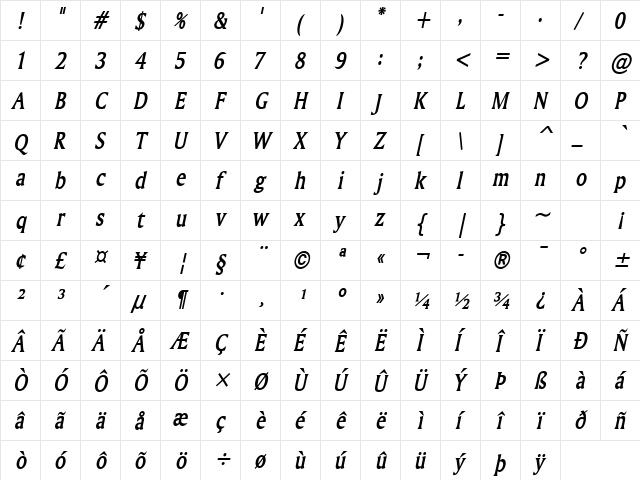
Complete Ameretto Condensed BoldItalic glyph index. Displaying only characters natively supported by Ameretto Condensed BoldItalic font.
Ameretto Condensed is a composed and adaptable typeface that performs quietly and consistently across a wide range of design contexts. The slanted form adds forward momentum and visual energy. Its bold stroke weight gives it real presence on the page. Its narrow stance lets it pack a punch even in space-constrained designs.